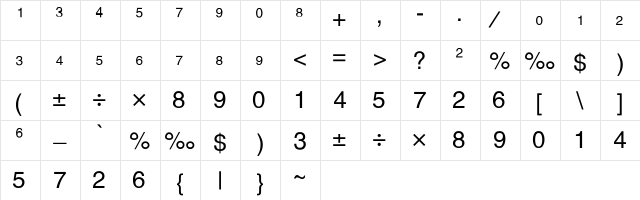
Alex-Fraction-N Regular
Design Context for Alex-Fraction-N Typeface
Alex-Fraction-N offers clean, dependable letterforms without strong stylistic allegiance, making it a practical choice for designers who need flexibility.
Pro Tip: Use Alex-Fraction-N in both headline and body roles to test its range before committing to a single application.